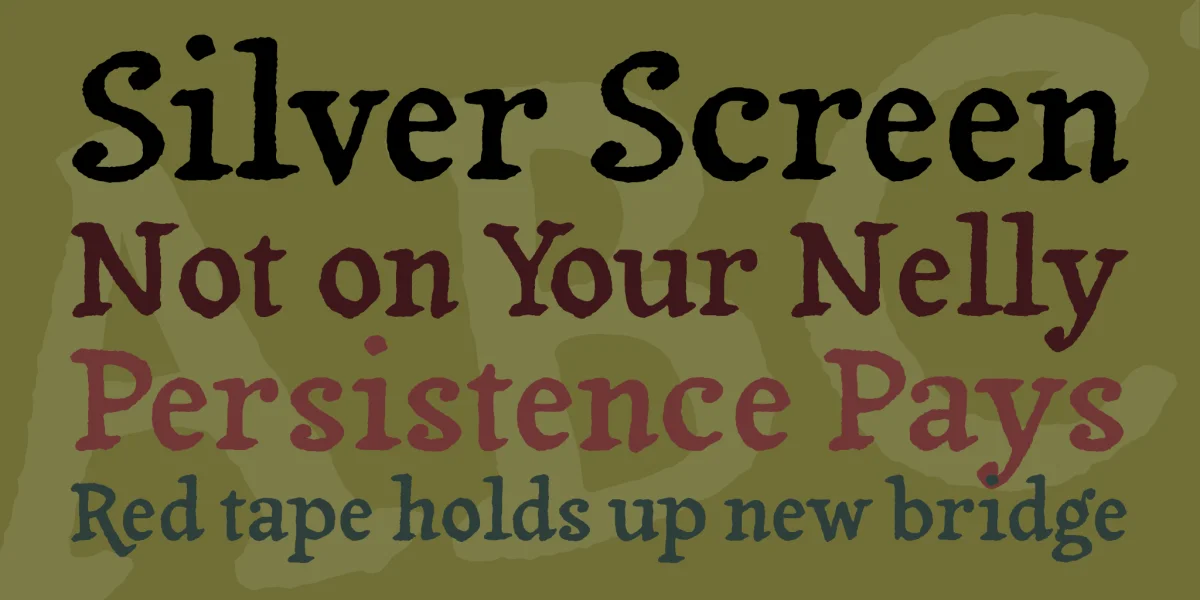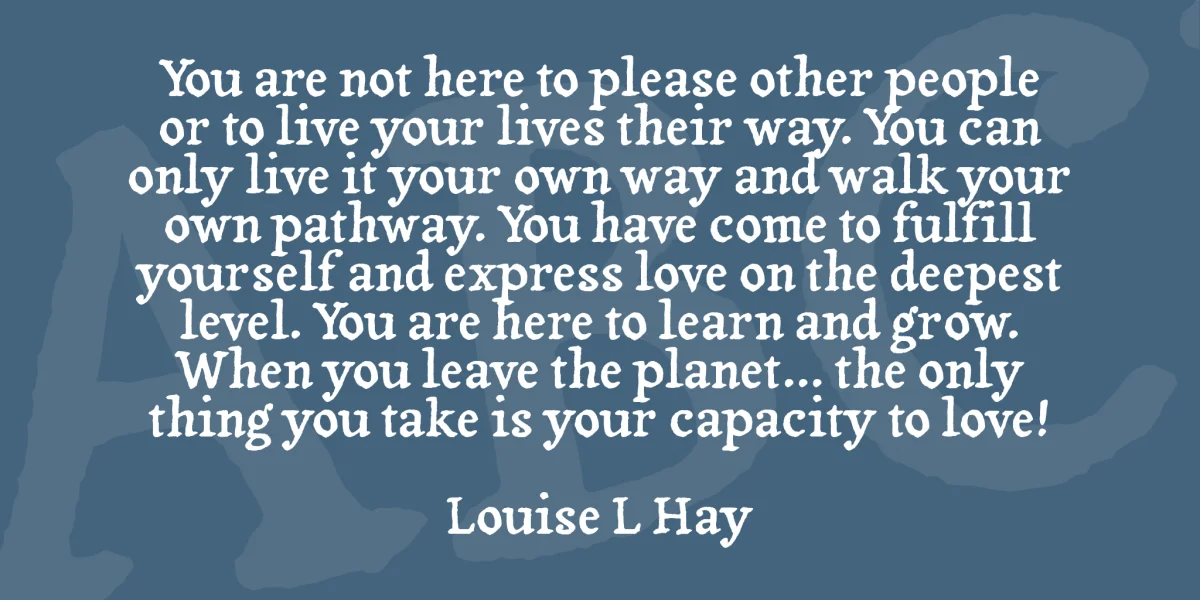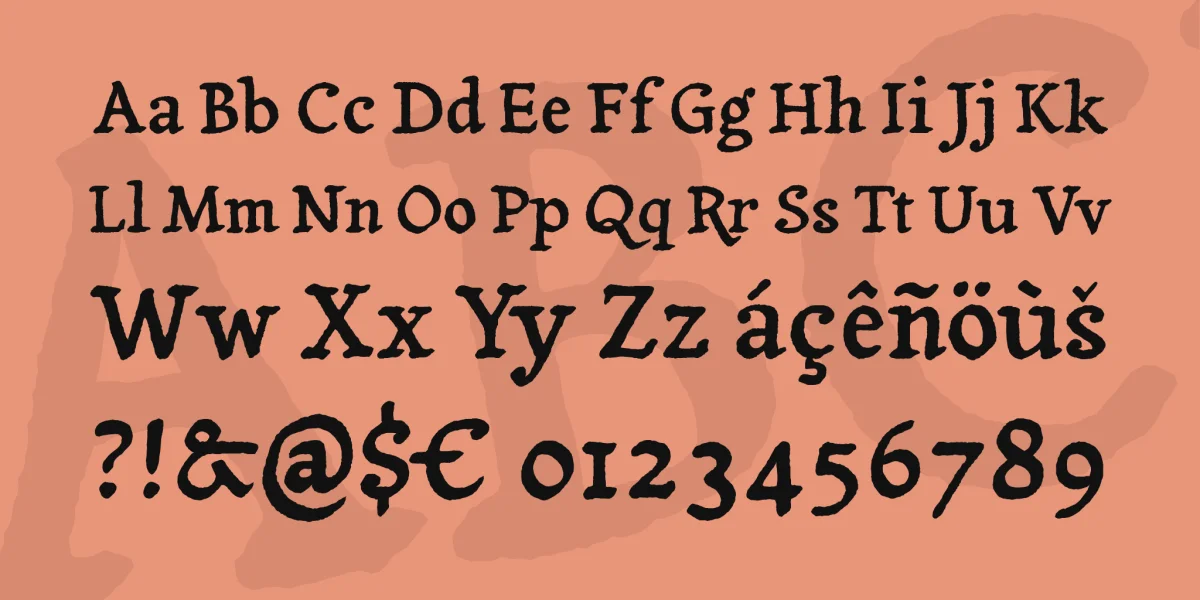
This simple Serif typeface came about on a type design and FontLab workshop that I once held at the Bauhaus-University in Weimar in 2005 for fellow students. I asked them to draw a set of letters and vectorize them.
I created one myself to visualize the process, and decided to make it into a finished font. The whole design process took one day (Tagesschrift = day font). Okay, I needed another one for the kerning. A two day font.